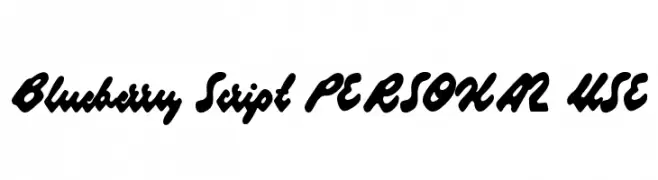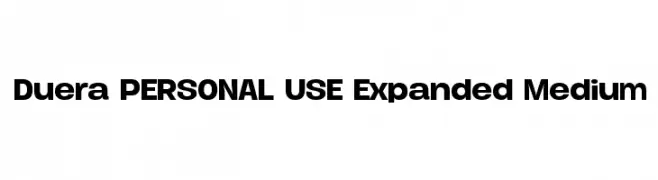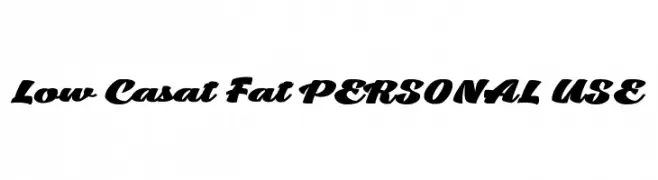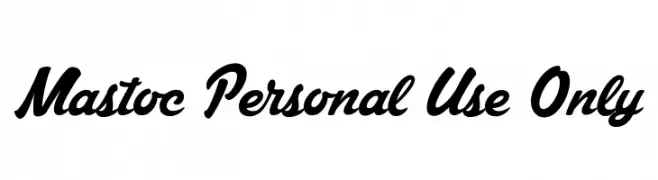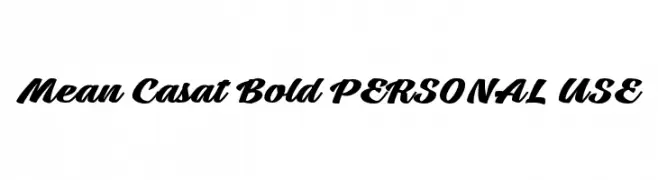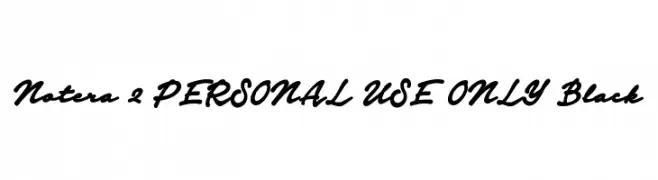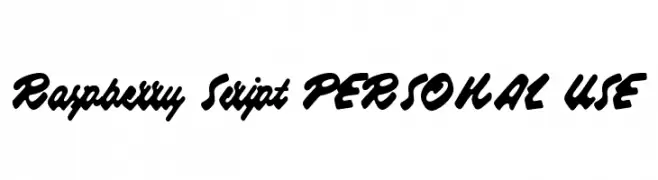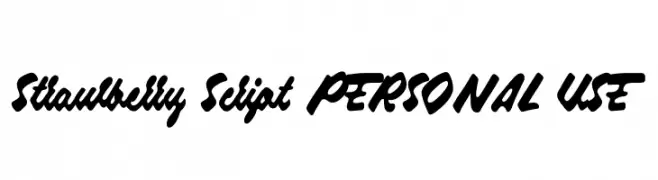
( Måns Grebäck - www.mansgreback.com )
A bold, flowing script font with a modern, playful style.
( Måns Grebäck - www.mansgreback.com )
A bold, modern font with expanded letterforms and consistent thickness.
( Måns Grebäck - www.mansgreback.com )
A bold, cursive font with interconnected characters and high contrast.
( Måns Grebäck - www.mansgreback.com )
A bold, cursive font with smooth, flowing lines and a dynamic, elegant style.
( Måns Grebäck - www.mansgreback.com )
A bold, dynamic script font with high contrast and fluid connections.
( Måns Grebäck - www.mansgreback.com )
A bold, cursive font with a flowing, handwritten style.
( Måns Grebäck - www.mansgreback.com )
A bold, cursive script font with a playful and energetic style.
( Måns Grebäck - www.mansgreback.com )
A bold, cursive script font with a playful and energetic style.